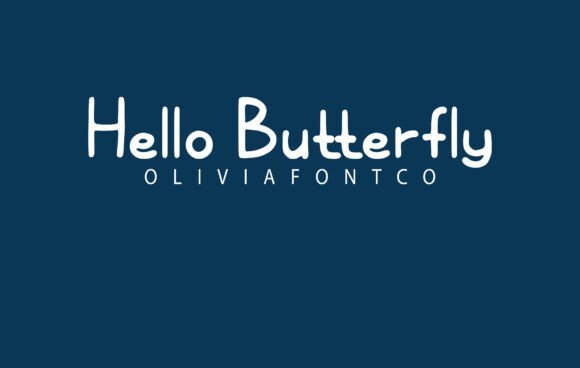
Discover the Magic of Handwritten Text with Hello Butterfly Font
Have you ever sat down with a blank sheet of paper, a cup of coffee, and a spark of inspiration, only to watch your creative ideas take flight? That’s exactly what happened when the Hello Butterfly Font was born – a true labor of love that brings a touch of whimsy and romance to any design.
This authentic handwritten font is more than just a pretty face; it’s a powerful tool for designers looking to elevate their creative projects. With its legible and charming aesthetic, Hello Butterfly Font is perfect for titles, body text, and everything in between. Whether you’re crafting magazine headlines, social media posts, or wedding invitations, this font is sure to make a lasting impression.
Hello Butterfly Font Key Features
- Unique Characteristics: Hello Butterfly Font features a unique blend of elegance and whimsy, with intricate details and flourishes that evoke a sense of wonder.
- Language Support: The font supports a wide range of languages, including Latin, Cyrillic, Greek, and many others, making it an excellent choice for multilingual designs.
- Font Style: Hello Butterfly Font is available in both regular and bold weights, allowing designers to create a range of visual effects and emphasis.
Designer Review: Hello Butterfly Font
Hello Butterfly Font is a whimsical, hand-drawn font that I initially fell in love with for its delicate and playful feel. ✨ It’s perfect for projects that need a touch of warmth and personality, such as children’s books, party invitations, or even branding for a bakery or café.
The font has a beautiful, organic feel that makes it stand out from more traditional fonts. ✨ The subtle imperfections and nuances in each letter make it feel more human and less mechanical.
It’s highly versatile and can be used in a variety of contexts, from headings and titles to body text and captions. ✨ The font is also highly customizable, allowing you to adjust the size, color, and spacing to fit your needs.
However, I do have some reservations about the font’s limitations. ⚠️ It’s not suitable for formal or professional projects, as it may come across as too playful or childish. Additionally, the font may not be legible at very small sizes, which could be a problem in certain contexts.
Overall, I think Hello Butterfly Font is a wonderful addition to any designer’s toolkit. While it may have some limitations, its unique charm and versatility make it a great choice for the right projects. With a little care and attention, this font can add a touch of magic to your designs.
Practical Application Guide for Hello Butterfly Font
The Hello Butterfly Font is ideal for:
- Birthday party invitations and decorations
- Children’s book illustrations and design
- Party and event branding
Alternatives to Hello Butterfly Font for Designers
The Great Vibes Font is a beautiful, cursive script font that is perfect for creating a whimsical and romantic feel. It is ideal for use in wedding invitations, greeting cards, and other design projects where a touch of elegance is required.
Compared to Hello Butterfly Font, Great Vibes Font has a more classic and timeless feel, while Hello Butterfly Font has a more playful and childlike quality. Great Vibes Font is also more versatile and can be used in a wider range of design projects.
Q: What is the character set for the Hello Butterfly Font?
The Hello Butterfly Font includes a wide range of characters, including uppercase and lowercase letters, numbers, punctuation marks, and special characters. It also includes support for Latin, Cyrillic, and Greek alphabets, making it suitable for use in a variety of languages.